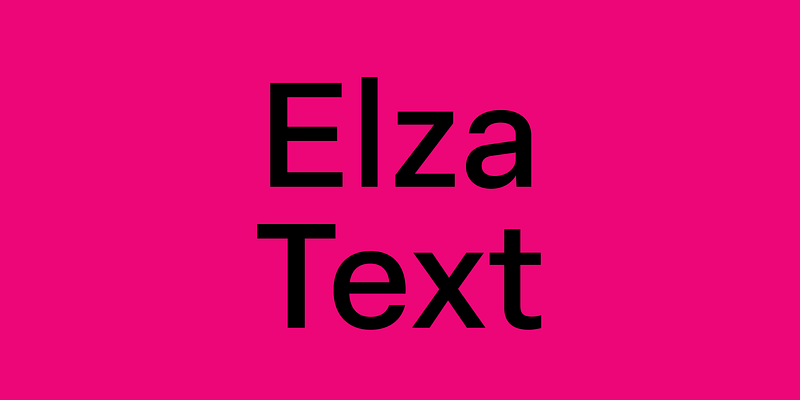
Elza Text Font Free Download is a clean, modern sans-serif typeface designed specifically for comfortable reading in long-form content. With its open letterforms, balanced proportions, and subtle humanist influences, this font is perfect for editorial layouts, books, reports, websites, and user interfaces where clarity and readability are key.
Elza Text Font Free Download offers a softer, more readable alternative to its condensed and narrow siblings in the Elza family. Its generous spacing and thoughtful details make it ideal for body copy while still holding up well in subheadings and captions. The design is functional yet friendly—great for both digital and print applications.
With multiple weights and excellent multilingual support, Elza Text adapts seamlessly to structured, professional layouts or more approachable brand communication.